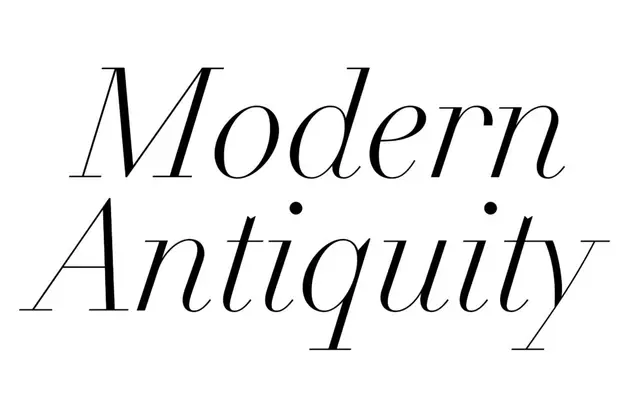
Didot Modern
Nouvelle Noire · Arnaud Chemin · 2021
A hybrid Didone by Arnaud Chemin that grafts geometric minimalism and grotesque-derived alternates onto the French neoclassical printing tradition.
Drawing from Nicolas Pierre Gando, Ludwig & Mayer's Didone and Jules Didot sources, Arnaud Chemin stripped out baroque flourishes and teardrop terminals in favour of flat endings and sharp triangular serifs that read as both historical and rigorously contemporary. Ten styles run across five weights from Light to Black, each with a matching italic. A broad stylistic set offers alternate characters for A, R, Q, V, W and others, constructed on grotesque principles that Chemin traces back through Clarendon to the Didot tradition itself. Suited to fashion, luxury, art publishing and corporate identity work where high contrast and precision at large sizes are required.
Explicitly rooted in the Didot and Didone tradition, with extreme stroke contrast, flat unbracketed serifs and vertical stress characteristic of neoclassical French printing types.